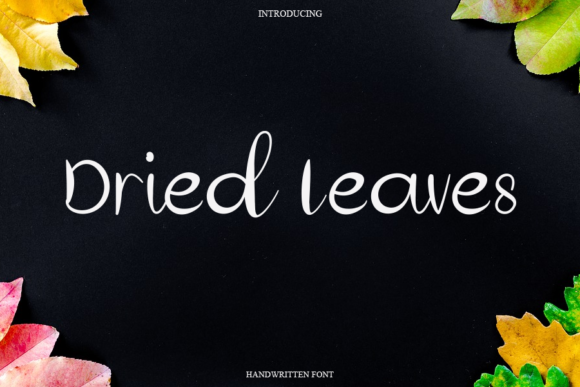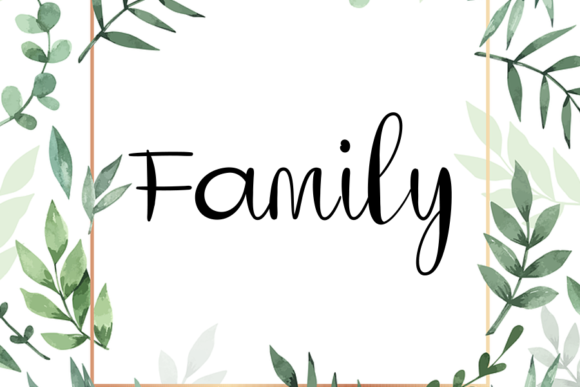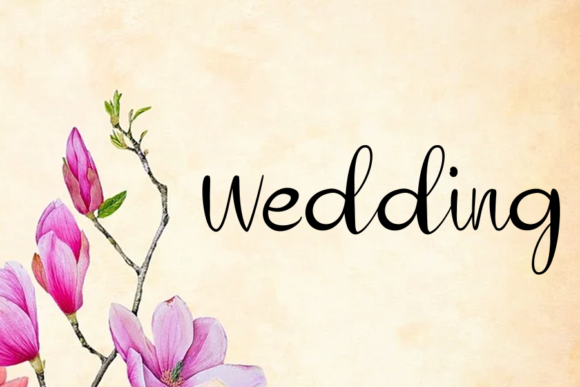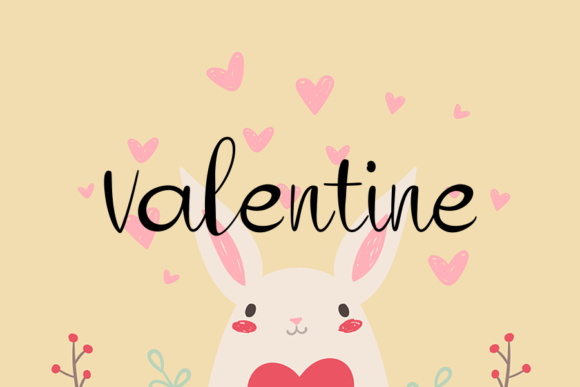
About Dried Leaves Font
Dried Leaves is a delicate and beautiful handwritten font. Its distinct and well balanced letters make this font a masterpiece. Fall in love with its incredibly versatile style and use it to create spectacular designs!